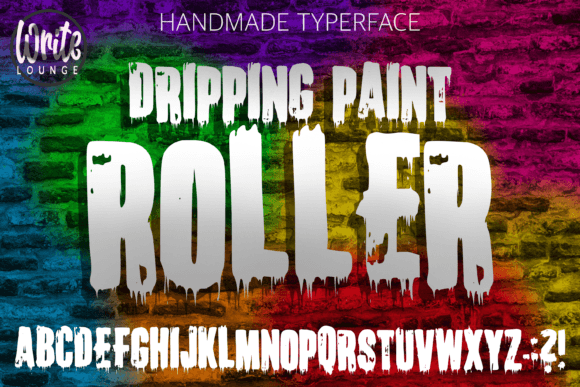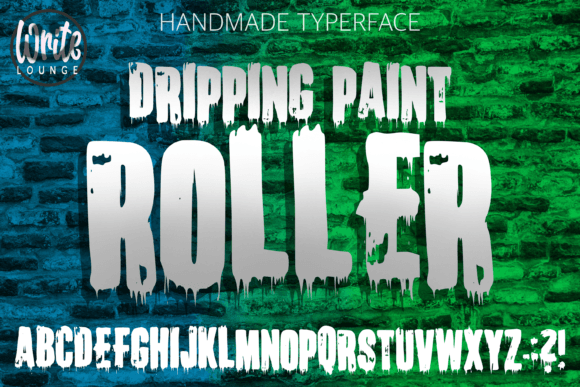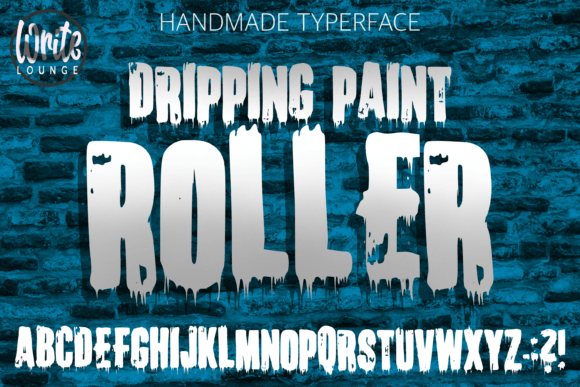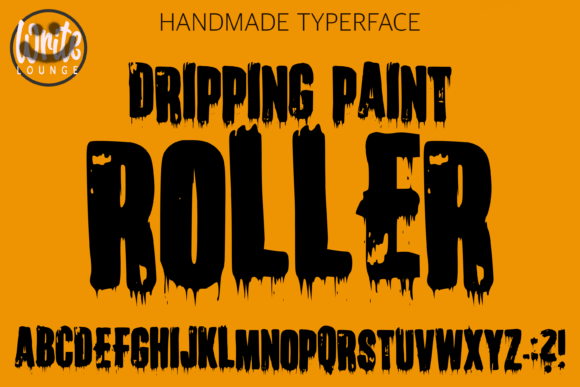
Dripping Paint Roller Font: Unleash Your Creativity with this Cool Graffiti Display Font
Are you a designer, crafter, or artist looking for a unique and eye-catching font to add to your creative projects? Look no further than the Dripping Paint Roller Font! This cool graffiti display font is sure to make a statement and leave a lasting impression on your audience. In this article, we’ll dive into the world of Dripping Paint Roller Font, exploring its features, uses, and benefits, as well as provide tips and inspiration for incorporating it into your work.
What is Dripping Paint Roller Font?
Dripping Paint Roller Font is a stylish and modern graffiti display font that mimics the look of dripping paint. Its unique and distressed design makes it perfect for creating bold and eye-catching headlines, titles, and graphics. The font’s dripping effect gives it a dynamic and edgy feel, making it ideal for projects that require a touch of street art flair.
Key Features of Dripping Paint Roller Font
- Unique and distressed design: The font’s dripping paint effect gives it a one-of-a-kind look that’s sure to stand out.
- Graffiti-inspired style: The font’s graffiti roots make it perfect for projects that require a bold and edgy aesthetic.
- Modern and stylish: The font’s sleek and contemporary design ensures it will fit right in with modern design trends.
Uses for Dripping Paint Roller Font
Dripping Paint Roller Font is versatile and can be used in a variety of creative projects, including:
- Graphic design: Use the font to create bold and eye-catching logos, posters, and flyers.
- Crafting: Add a touch of street art flair to your scrapbooking, card making, and other paper crafting projects.
- Digital art: Incorporate the font into your digital art, illustrations, and mixed media projects.
- Advertising and marketing: Use the font to create attention-grabbing headlines and titles for your advertising and marketing materials.
Benefits of Using Dripping Paint Roller Font
So why choose Dripping Paint Roller Font for your creative projects? Here are just a few benefits:
- Adds a unique touch: The font’s distinctive design ensures your projects will stand out from the crowd.
- Evokes emotion: The font’s bold and edgy aesthetic is sure to evoke a strong emotional response from your audience.
- Versatile: The font can be used in a wide range of creative projects, from graphic design to crafting.
Tips for Using Dripping Paint Roller Font
Here are a few tips for getting the most out of Dripping Paint Roller Font:
- Use it sparingly: The font’s bold design makes it best suited for headlines and titles. Use it sparingly to avoid overwhelming your design.
- Experiment with colors: The font looks great in bold and bright colors. Experiment with different hues to find the perfect look for your project.
- Combine with other fonts: The font pairs well with clean and simple fonts. Try combining it with a sans-serif font for a striking contrast.
Need some inspiration for using Dripping Paint Roller Font? Here are a few ideas to get you started:
- Create a street art-inspired poster: Use the font to create a bold and eye-catching poster that captures the spirit of street art.
- Design a graffiti-style logo: Use the font to create a unique and memorable logo for your business or brand.
- Add a touch of street art to your scrapbooking: Use the font to add a bold and edgy touch to your scrapbooking and paper crafting projects.